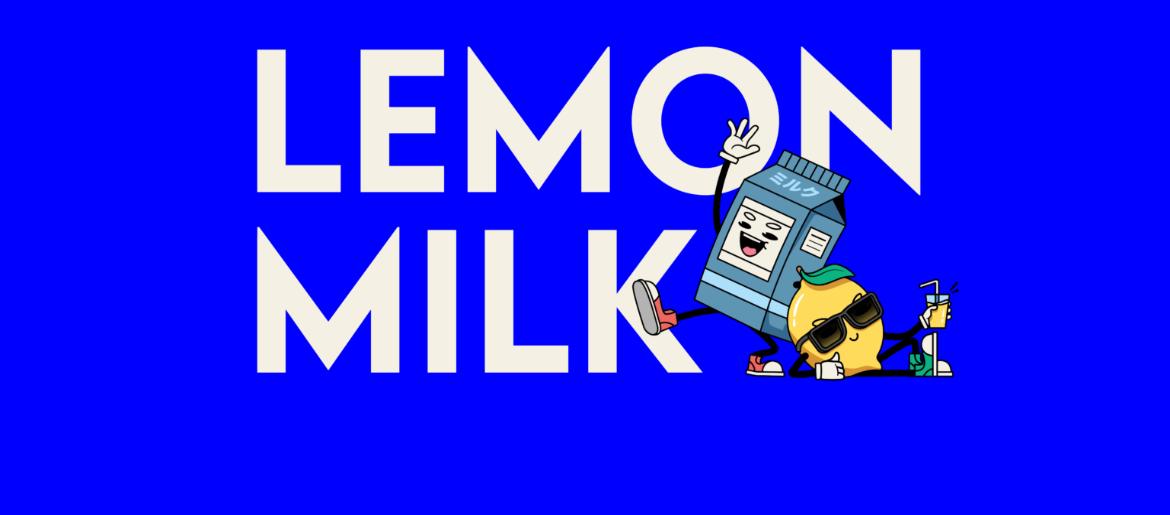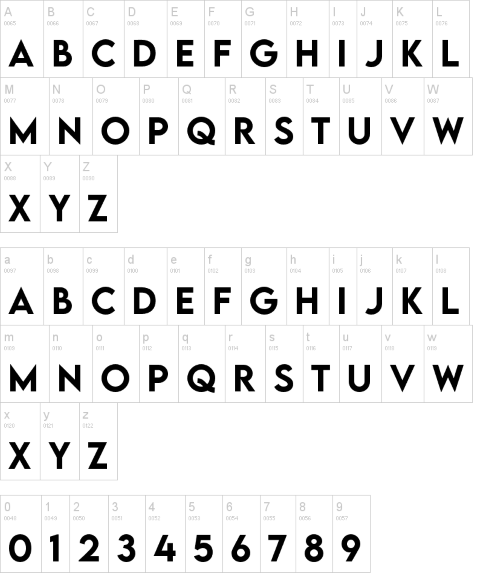
Lemon Milk Font
Lemon Milk Font is a bold geometric display typeface known for its sharp edges and modern precision. Originally released as a free font, it quickly gained worldwide popularity, appearing in branding, packaging, and high-profile visuals. Its clean structure, striking angles, and contemporary flair make it ideal for impactful, stylish design projects.
➤ Font Name: Lemon Milk
➤ Designer: Marsnev
➤ Style: Sans serif